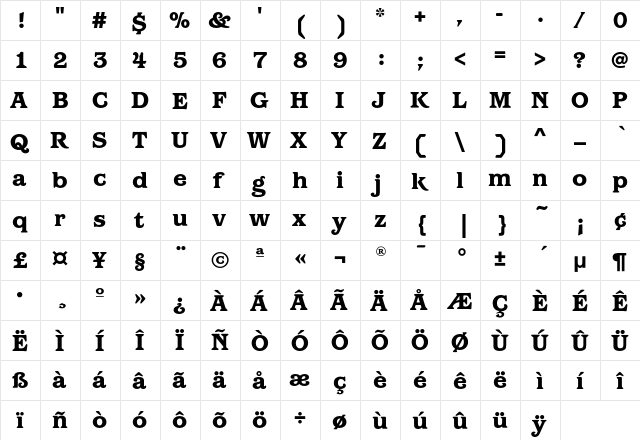
BarcelonaEF-Heavy Regular
Design Context for BarcelonaEF-Heavy Typeface
BarcelonaEF-Heavy takes a measured approach to typography — its balanced proportions and neutral character make it a reliable workhorse for both digital and print work.